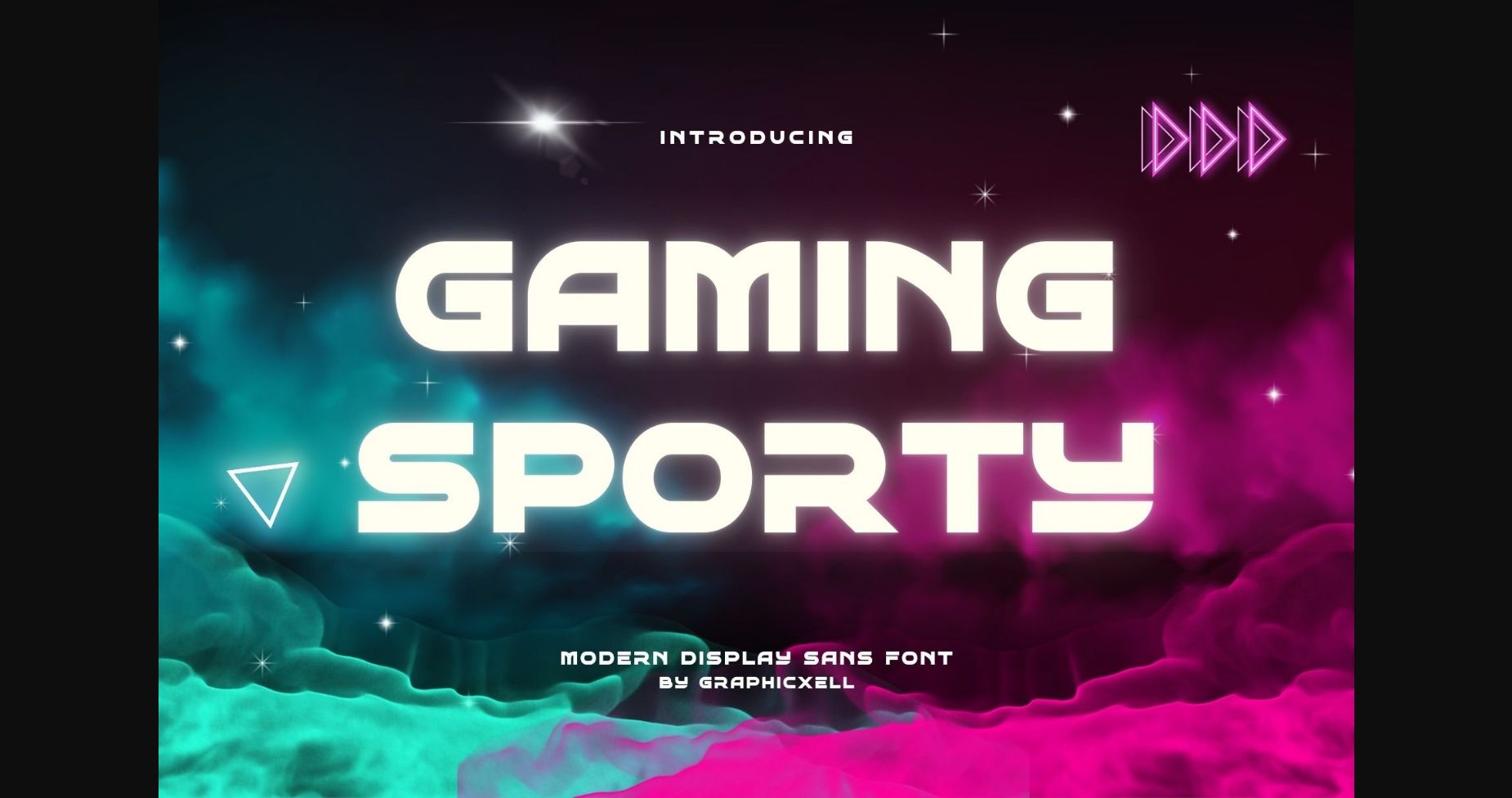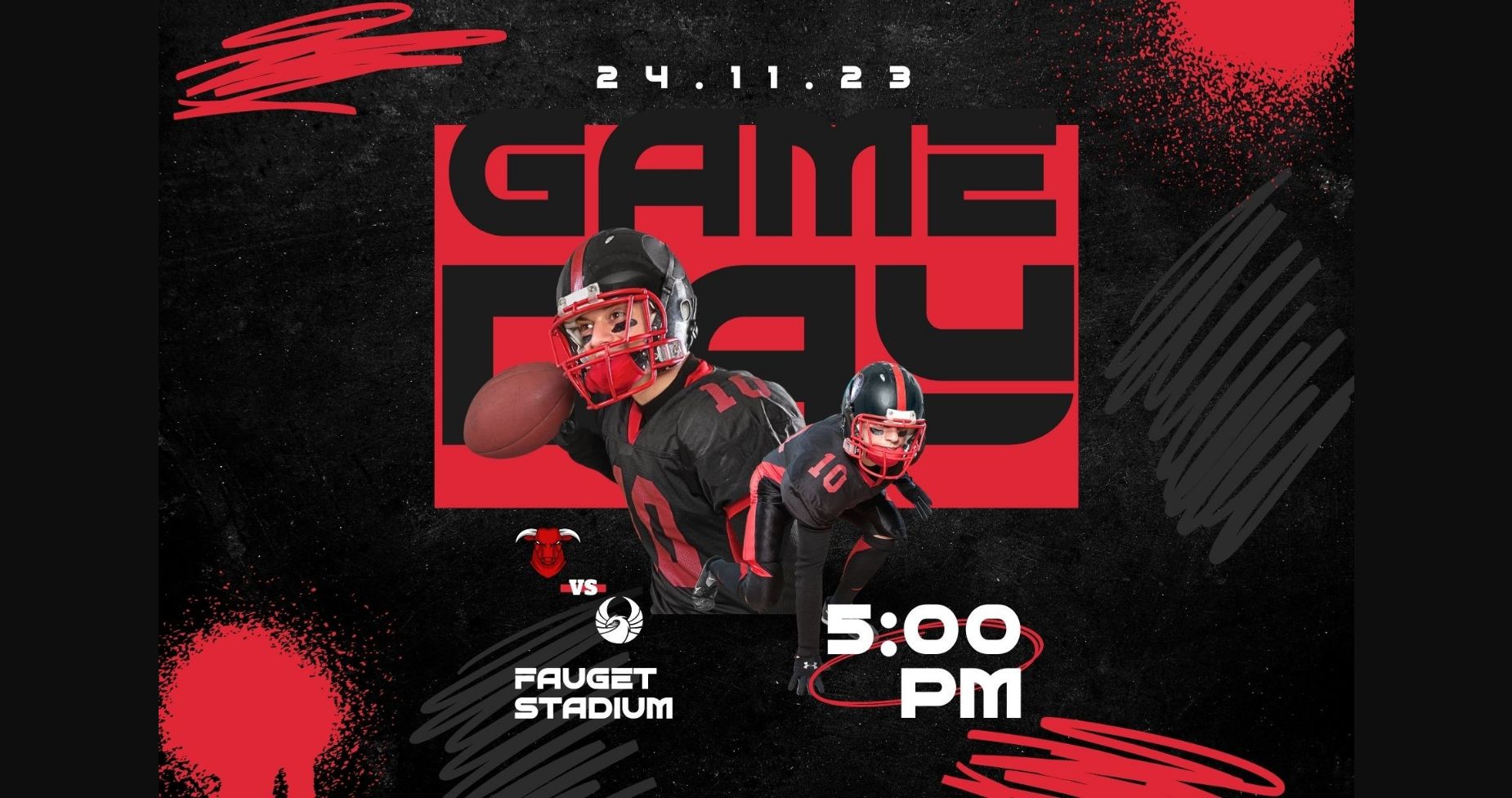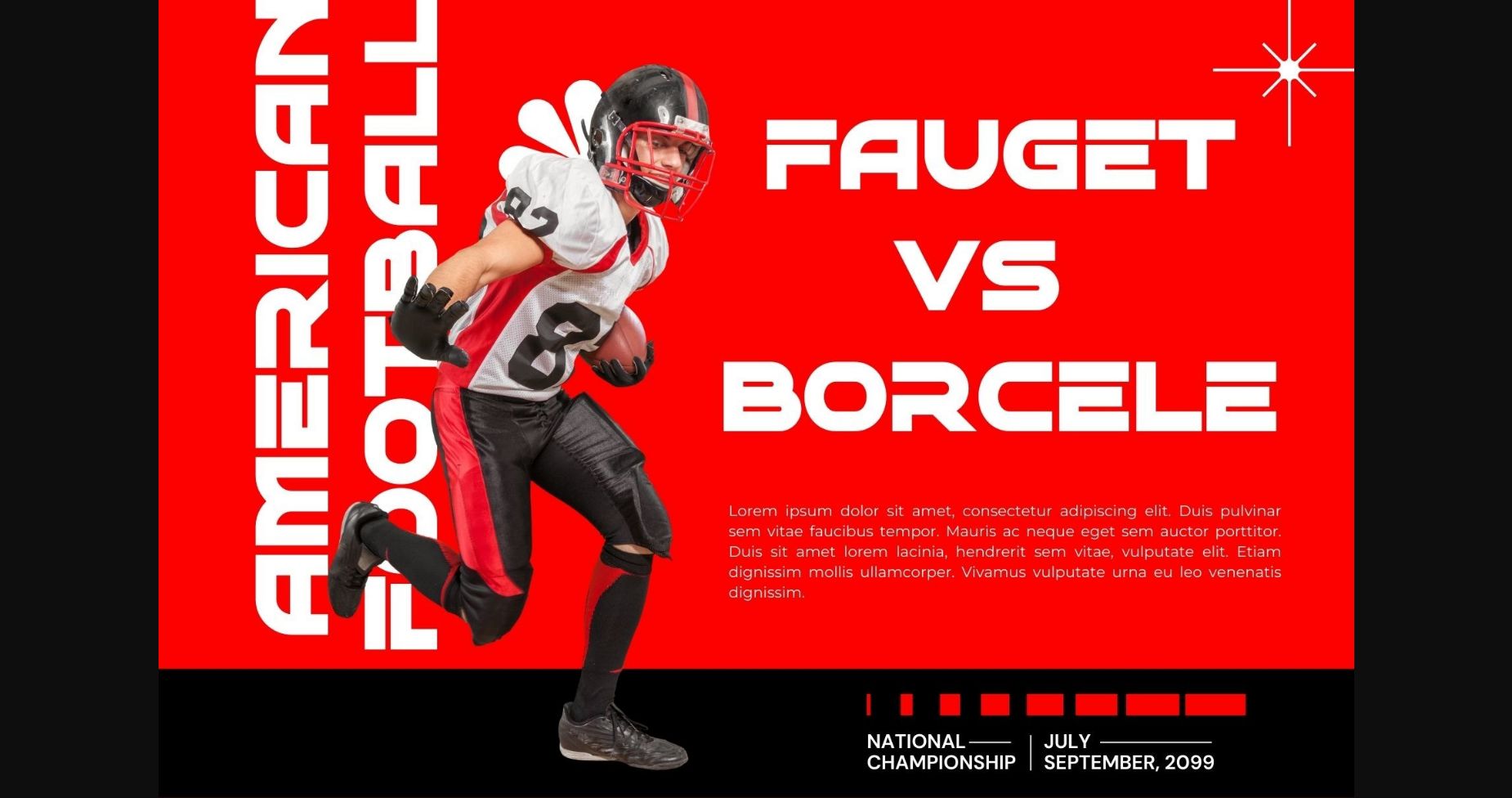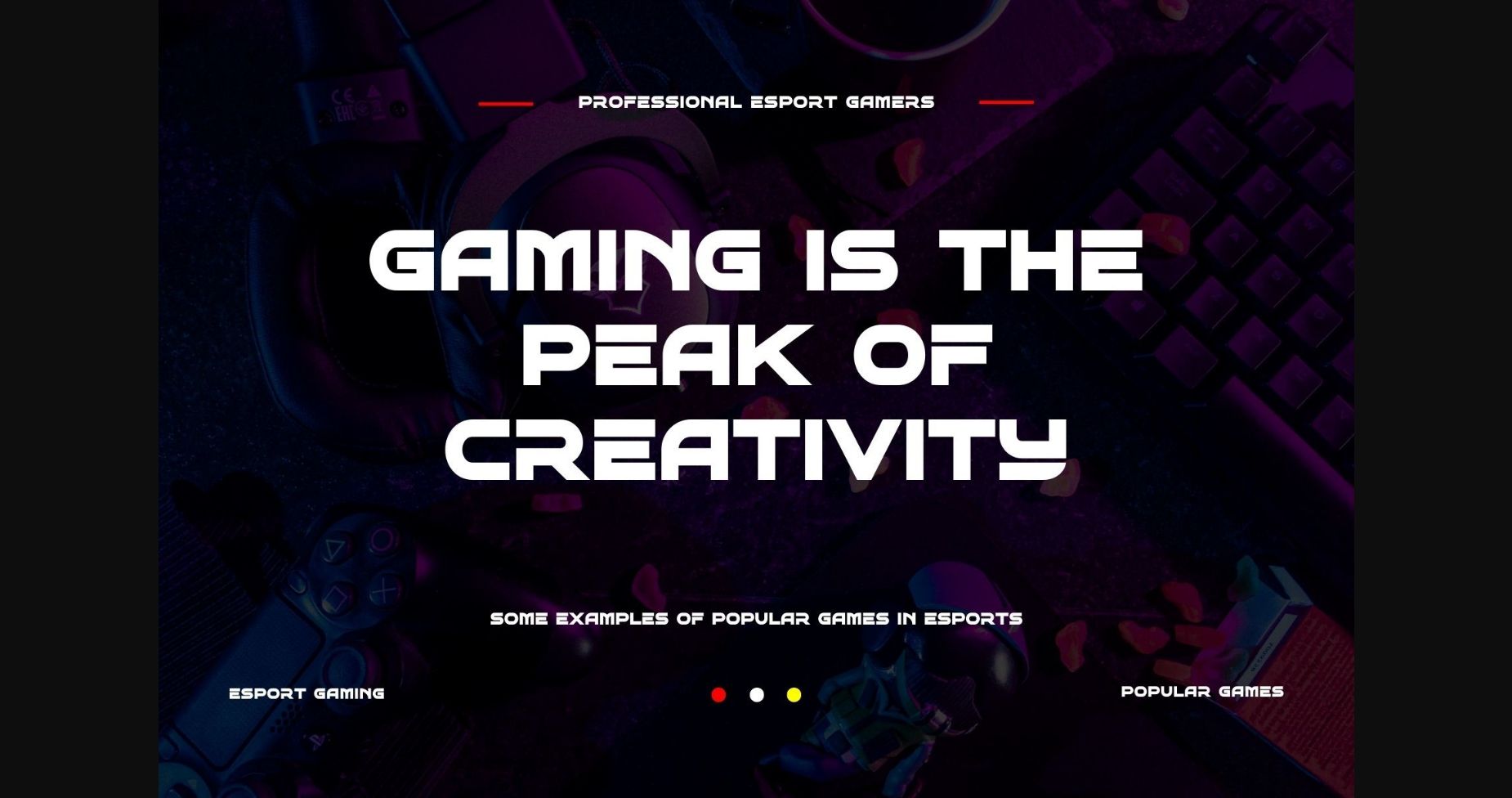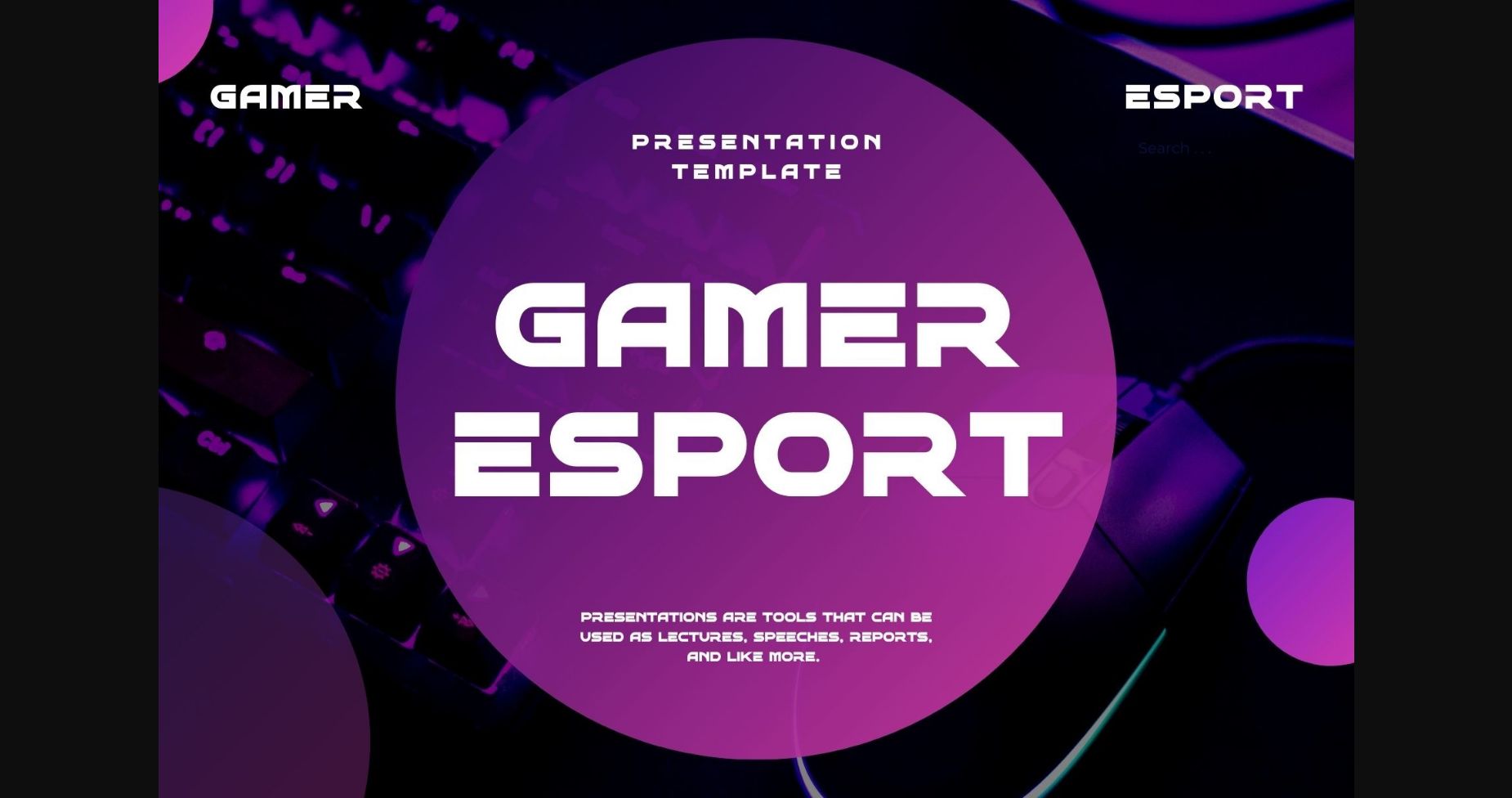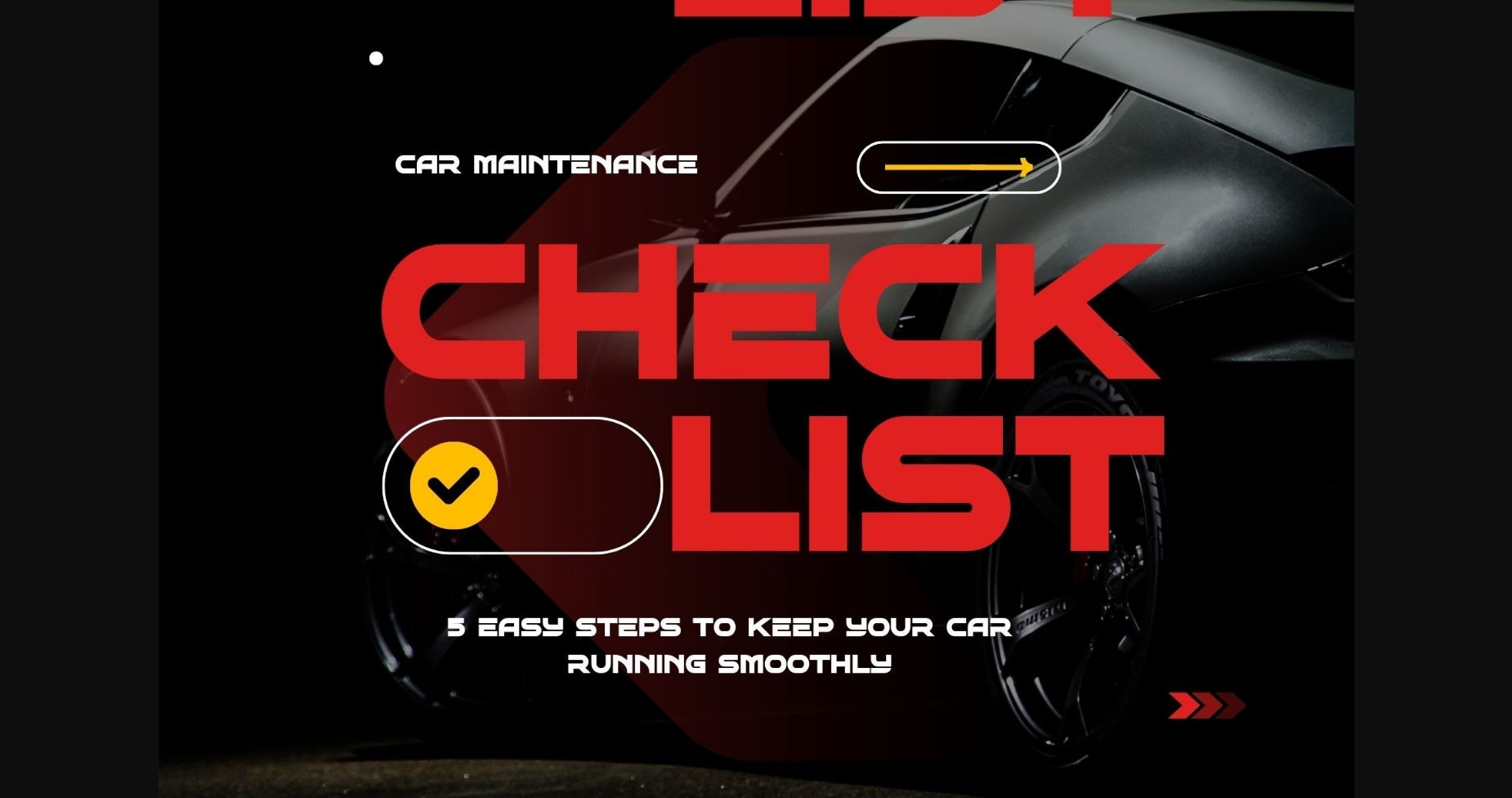
About Gaming Sporty Font
Gaming Sporty is a cool and sporty display font that captures the energetic essence of the gaming world. With its bold and wide letterforms, it demands attention and adds a dynamic touch to any design. Perfect for gaming logos, posters, or headlines, this font conveys a sense of action and excitement. Its strong and impactful presence creates a visual impact that resonates with gaming enthusiasts.